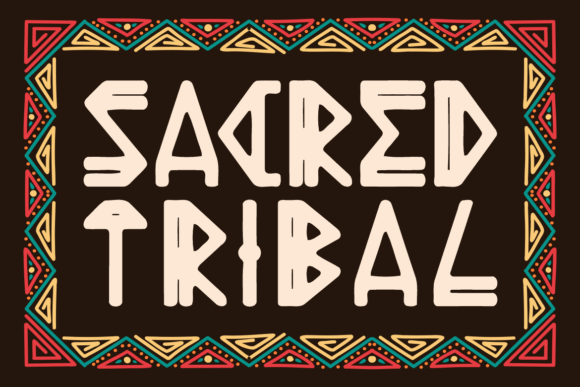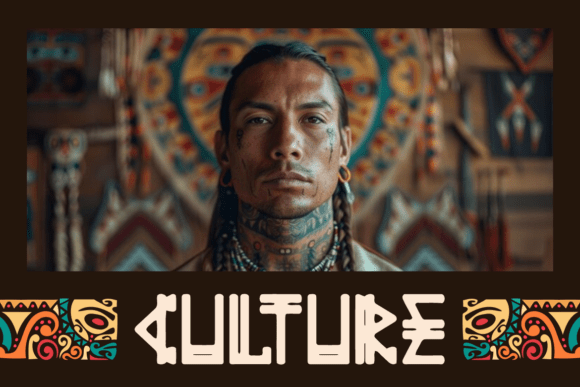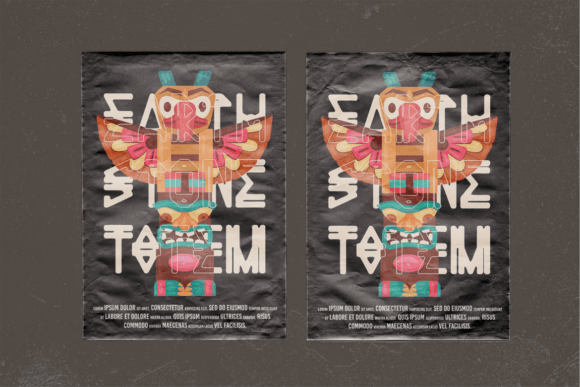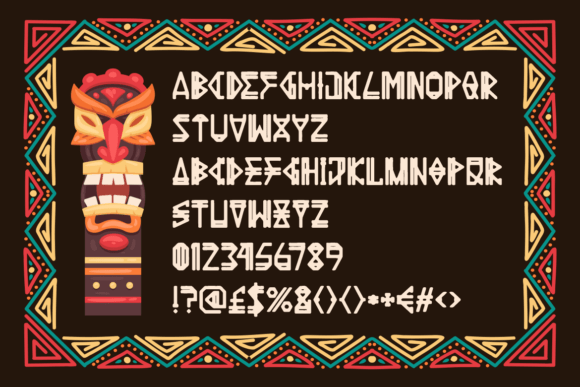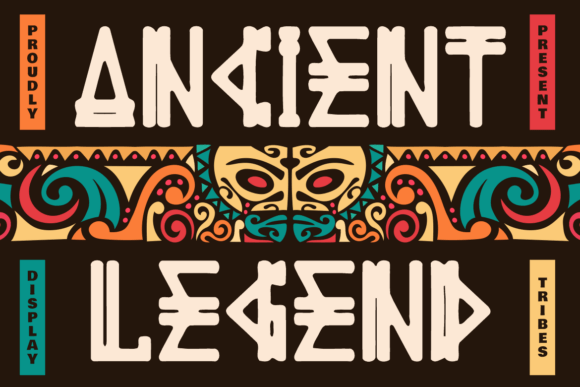
The Ancient Legend Font: Unleashing Tribal Vibes in Your Designs
Have you ever been in the middle of a design project, and suddenly, you just can’t seem to find the right font? I recall a particularly frustrating moment when I was working on a branding project for a wellness company that specialized in organic products. My client wanted a font that would evoke a sense of raw, natural energy, but everything I tried seemed to fall flat. That’s when I stumbled upon the Ancient Legend font, and let me tell you, it was like a breath of fresh air! 🌿
A Bold, Tribal-Inspired Display Font
Ancient Legend is a bold, tribal-inspired display font that fuses primitive aesthetics with rich cultural symbolism. This font is perfect for branding projects that want to tap into organic roots and mystical energy in a modern composition. Designed for maximum impact, Ancient Legend delivers authenticity in ethnic posters, tribal event titles, logo designs, and cultural product packaging.
Honest Review: The Good, the Bad, and the Quirky
• ✨ The font’s bold, eye-catching design makes it perfect for headlines and titles.
• ✅ The tribal-inspired aesthetic adds a unique touch to any design project.
• 🌈 The font’s rich cultural symbolism adds depth and meaning to your designs.
While Ancient Legend is an amazing font, there are a few things to keep in mind. ⚠️ The font can be a bit overpowering if not used in moderation. Also, some of the glyphs and special characters can be a bit tricky to navigate, especially if you’re new to using OpenType features.
The Designer Inspiration Behind Ancient Legend
The designer behind Ancient Legend was inspired by the rich cultural symbolism and primitive aesthetics of ancient cultures. They wanted to create a font that would tap into the raw, natural energy of these cultures and bring it into modern design. The result is a font that is both bold and beautiful, with a unique blend of tribal and mystical elements.
Q: What type of projects is Ancient Legend best suited for?
A: Ancient Legend is best suited for branding projects that require a bold, tribal-inspired look, such as ethnic posters, tribal event titles, logo designs, and cultural product packaging.
Q: Is Ancient Legend easy to use?
A: Ancient Legend is relatively easy to use, but some of the glyphs and special characters can be a bit tricky to navigate, especially if you’re new to using OpenType features.